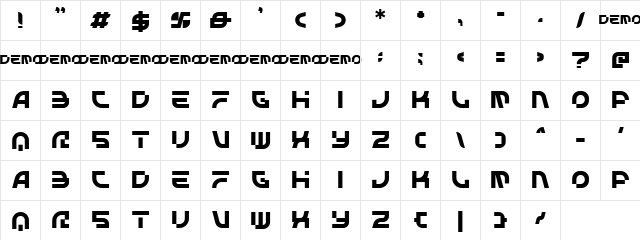
STARBLASTER demo Regular
Design Context for STARBLASTER demo Typeface
STARBLASTER demo is a composed and adaptable typeface that performs quietly and consistently across a wide range of design contexts.